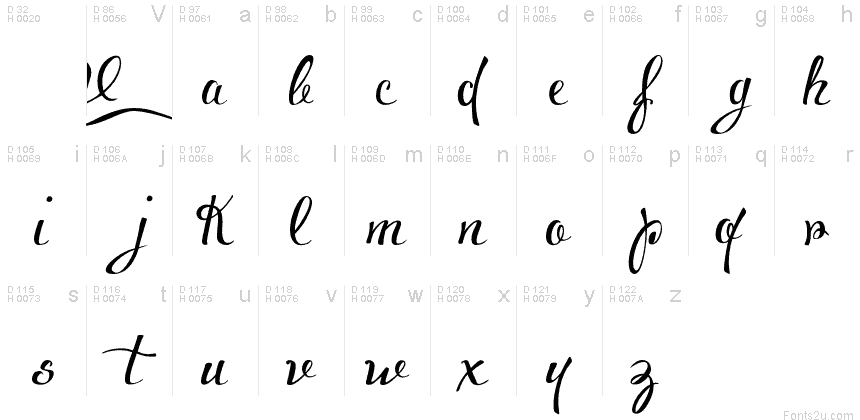
Voluptate by Fonts Cafe is a free calligraphic script with sweeping, high-contrast strokes and an elegant, unhurried line. Long loops and extended entry strokes give the lettering a broad silhouette, and the changing joins recall custom pen work rather than formal copperplate.
Wedding and fashion audiences will find it well suited to invitations, beauty packaging, and boutique branding. Its generous curves can echo ribbon, floral line art, or other flowing illustrations, making the lettering part of a decorative motif rather than a separate caption.